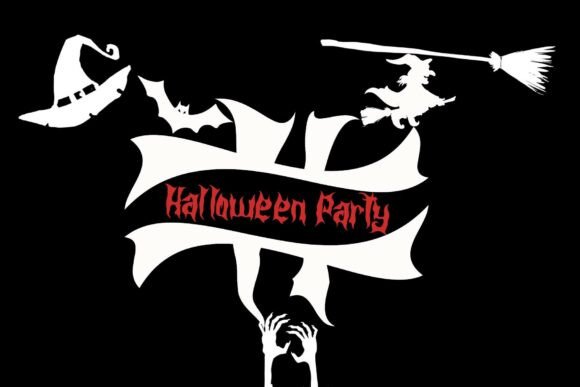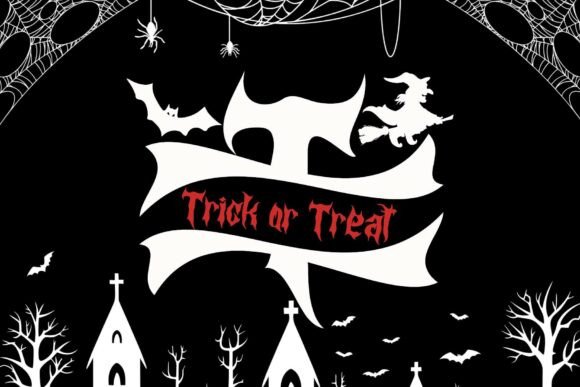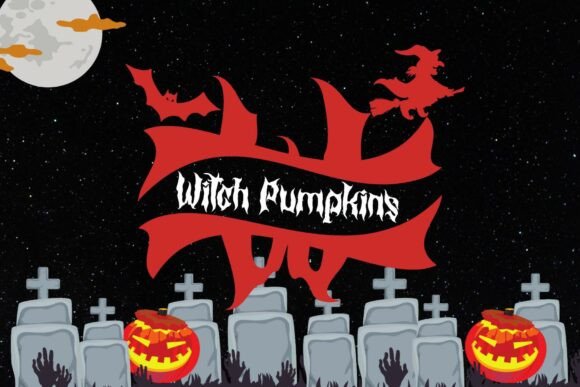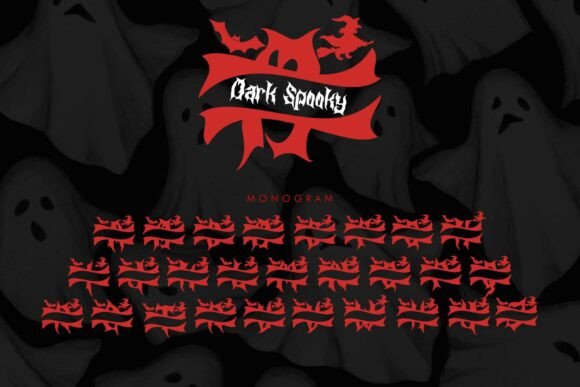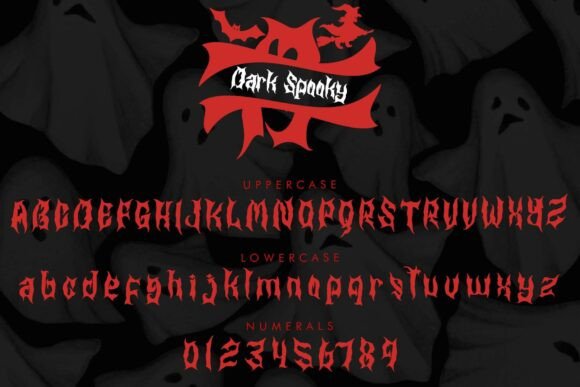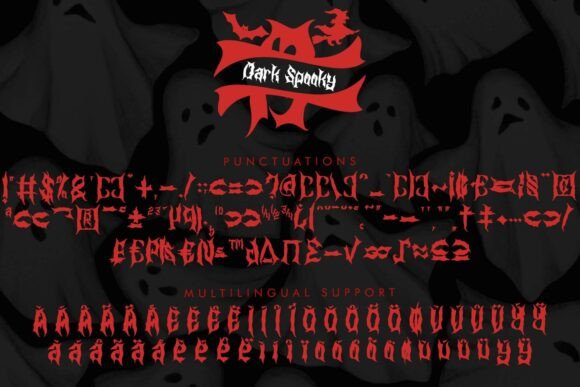
Unleash the Spook: Elevate Your Designs with Dark Spooky Monogram Font
Are you a designer or crafter looking to add a touch of eeriness to your projects? Look no further than the Dark Spooky Monogram Font, a horror-themed monogram font that’s perfect for a wide range of applications. From Halloween decorations to horror movie titles, this font is sure to cast a spell on your audience.
What is Dark Spooky Monogram Font?
Dark Spooky Monogram is a unique and terrifyingly cool monogram font that’s designed to bring a sense of horror and unease to your designs. With its creepy and spooky feel, this font is ideal for anyone looking to create a sense of tension and fear in their work.
Key Features of Dark Spooky Monogram Font
This font comes with a range of features that make it perfect for designers and crafters. Some of the key features include:
- Horror Monograms: The font features a range of horror-themed monograms that are sure to add a touch of spookiness to your designs.
- Uppercase and Lowercase Letters: The font includes both uppercase and lowercase letters, giving you the flexibility to create a wide range of designs.
- Numerals and Punctuations: The font also includes numerals and punctuations, making it easy to create complete and cohesive designs.
- Multilingual Support: The font supports multiple languages, making it perfect for designers and crafters who work with clients from around the world.
Uses for Dark Spooky Monogram Font
The Dark Spooky Monogram Font is perfect for a wide range of applications, including:
- Halloween Decorations: Create spooky signs, decorations, and other materials for Halloween parties and events.
- Horror Movie Titles: Use the font to create terrifying titles for horror movies, TV shows, and other projects.
- Book Titles and Covers: Add a touch of horror to your book titles and covers with this creepy font.
- Comics and Graphic Novels: Use the font to create spooky and atmospheric text for comics and graphic novels.
- T-Shirts and Merchandise: Create creepy and eye-catching designs for t-shirts, stickers, and other merchandise.
- Logos and Branding: Use the font to create a unique and memorable logo for your business or brand.
- Posters and Prints: Create eye-catching posters and prints with a spooky and horror-themed aesthetic.
- Tattoos and Body Art: The font’s bold and creepy design makes it perfect for tattoos and body art.
- Fall and Autumn Decorations: Use the font to create cozy and atmospheric decorations for fall and autumn events.
Why Choose Dark Spooky Monogram Font?
So why choose the Dark Spooky Monogram Font for your next project? Here are just a few reasons:
- Unique and Eye-Catching Design: The font’s creepy and spooky design is sure to grab attention and leave a lasting impression.
- Versatile and Flexible: The font can be used for a wide range of applications, from horror movie titles to logos and branding.
If you’re looking to add a touch of horror and unease to your designs, the Dark Spooky Monogram Font is the perfect choice. With its creepy and spooky design, versatile features, and wide range of applications, this font is sure to become a go-to in your design toolkit. So why wait? Download the Dark Spooky Monogram Font today and start creating your own terrifying designs!